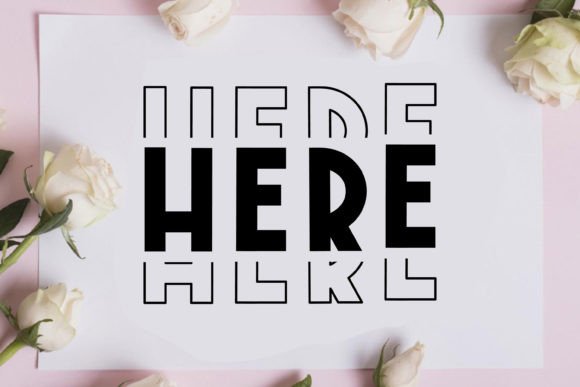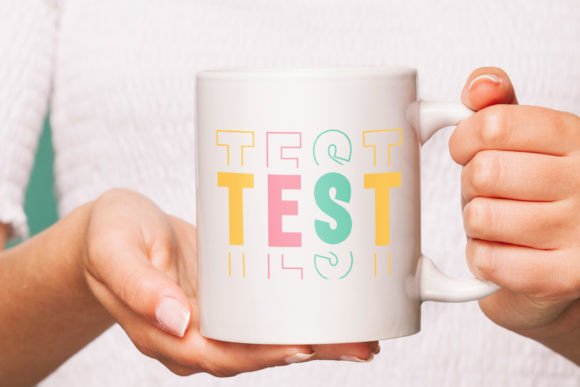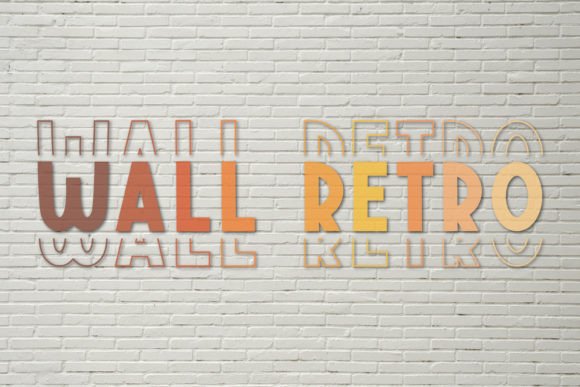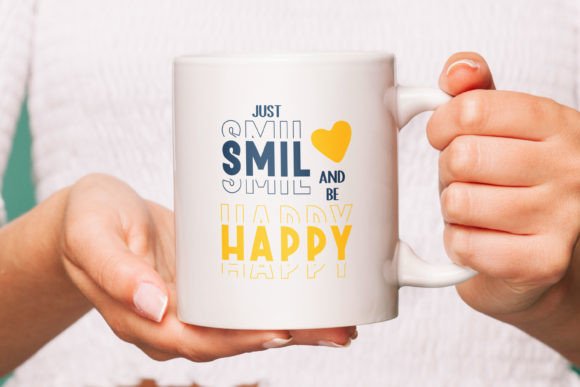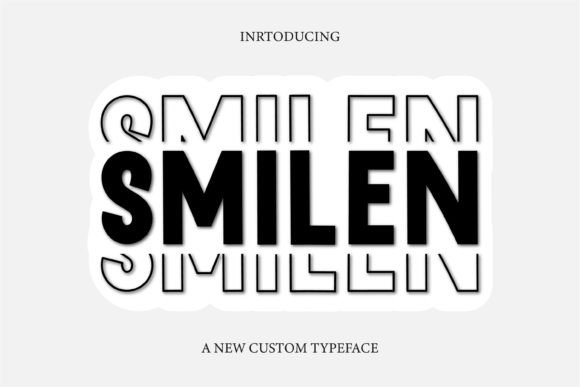
Introduction to Smilen Font
As a designer, there’s nothing quite like the rush of excitement you feel when a new project is about to come to life. You’ve poured over inspiration boards, crafted a solid concept, and are ready to bring your vision to the world. But, have you ever found yourself stuck on the perfect font to capture the essence of your design?
Enter the Smilen Font, a stunning stacked font that’s about to become your new go-to design resource. With its clean lines, minimalist design, and bold style, this font is sure to elevate your creative project and leave a lasting impression on your audience. Whether you’re working on a high-quality brochure, a website, or a social media campaign, the Smilen Font is the perfect choice for headlines and short titles.
Key Features of Smilen Font
- Features a transparent background, allowing for easy layering and manipulation
- Includes a wide range of characters, including Latin, Cyrillic, and Greek alphabets
- Unique and playful design makes it an ideal choice for creative projects, such as logo design, branding, and advertising
Honest Review: Smilen Font
As a designer, I’m always on the lookout for high-quality design resources to elevate my creative projects. Recently, I stumbled upon the Smilen Font, and I’m excited to share my honest review.
- ✨ The Smilen Font is incredibly versatile and can be used for a wide range of creative projects, from graphic design to digital art.
- ✨ The transparent background feature is a nice touch, allowing for seamless integration into any design project.
- ⚠️ Some users may find the font’s style a bit too playful or cursive, which may not be ideal for more formal projects.
Overall, I’m impressed with the Smilen Font, and I think it’s a great addition to any designer’s toolkit. While it may not be perfect, its strengths far outweigh its limitations, making it a valuable resource for any creative project.
For the best results, use the Smilen Font in conjunction with other design elements to create a cohesive and visually appealing design. Experiment with different font sizes, colors, and styles to find the perfect combination for your creative project.
The Smilen Font is perfect for a variety of creative projects, including social media graphics, presentations, documents, and web design. Its high-quality design resource and transparent background make it an ideal choice for designers who want to create professional-looking designs quickly and easily.